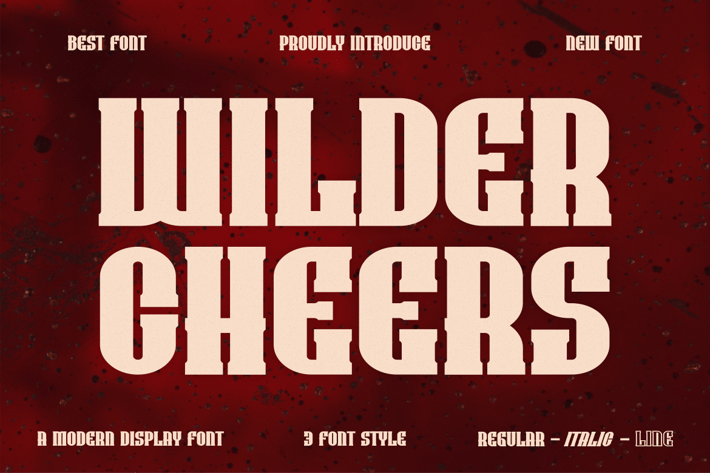
Wilder Cheers - Modern Font
Presenting Wilder Cheers - Font is suitable for badge, labels, logo, branding, magazine, poster and etc. Our fonts have Uppercase & Lowercase, Numeral & Punctuation, Multilingual support and Opentype Features. For Amazing designs you can mix with other fonts as a complement.